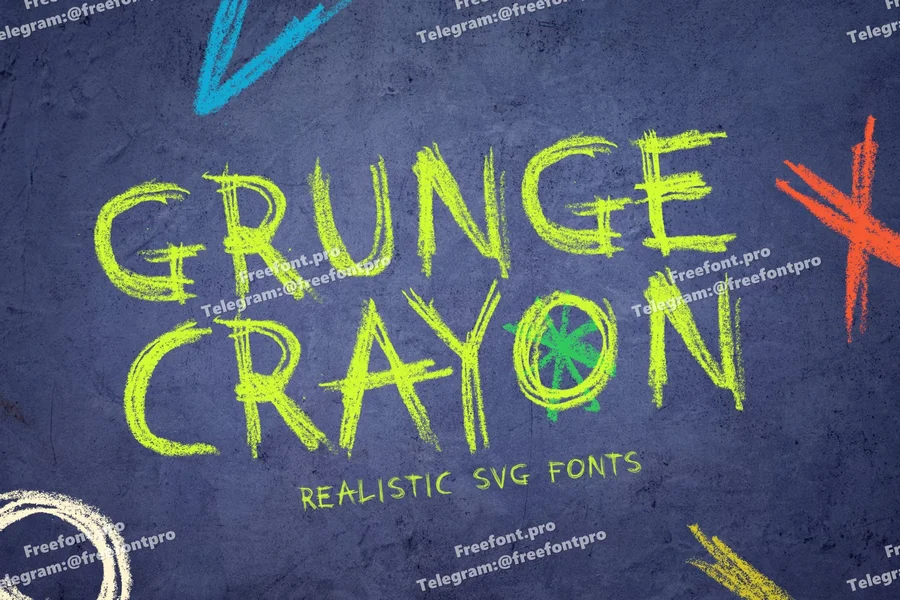
Grunge Crayon SVG
Explore your design with unique style of realistic crayon texture to create fun and grunge style. This font comes with SVG and regular otf version.
Grunge Crayon SVG
Explore your design with unique style of realistic crayon texture to create fun and grunge style. This font comes with SVG and regular otf version.